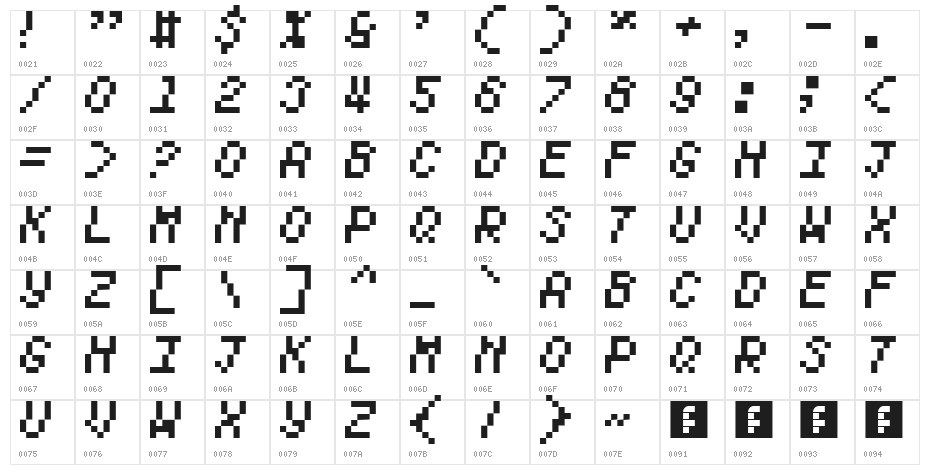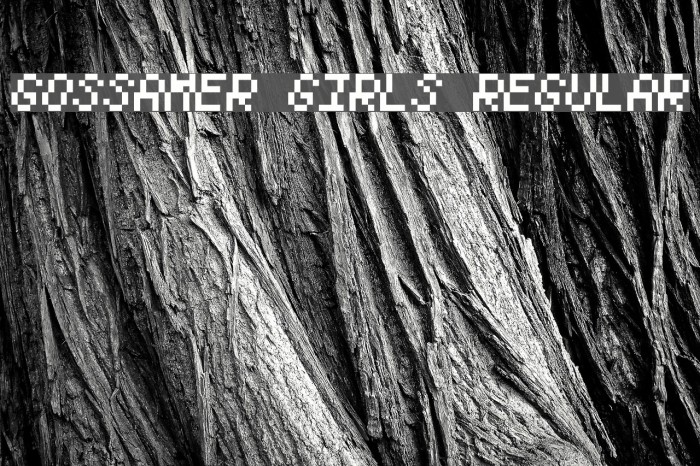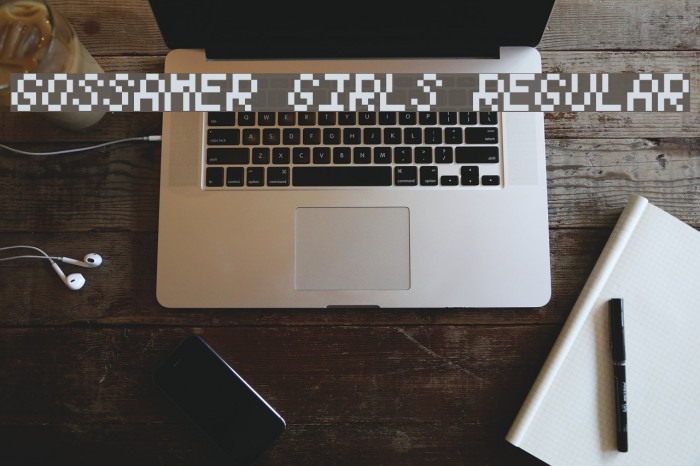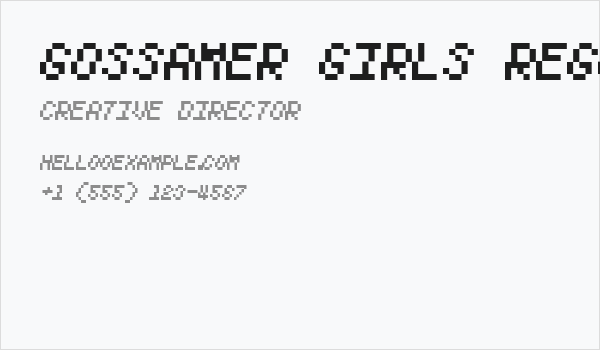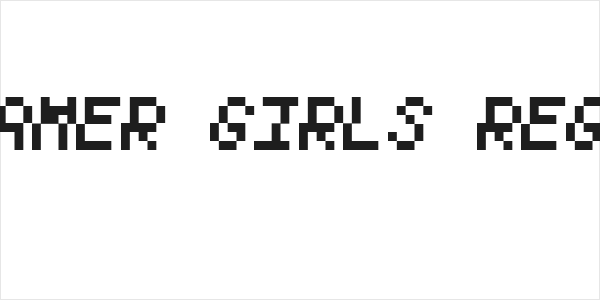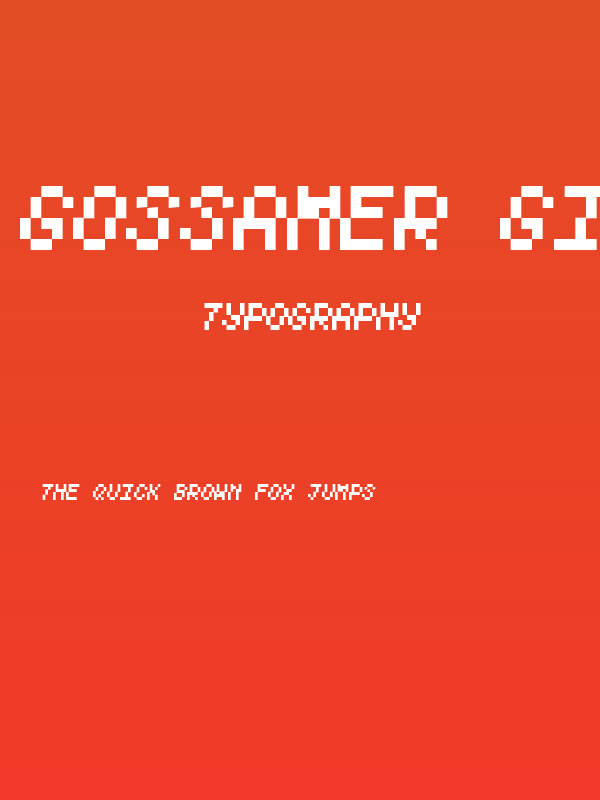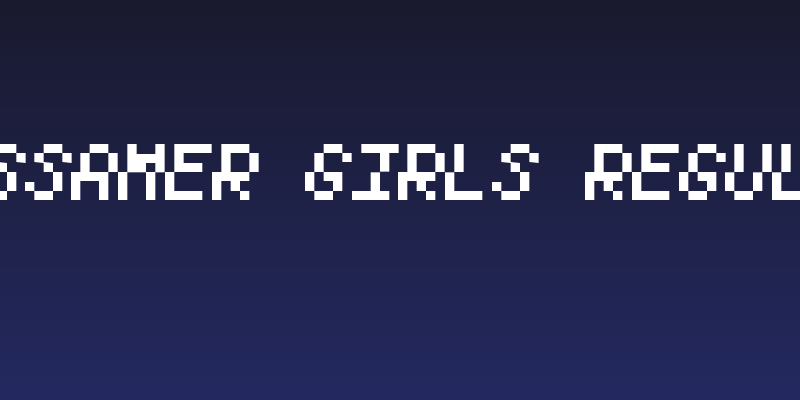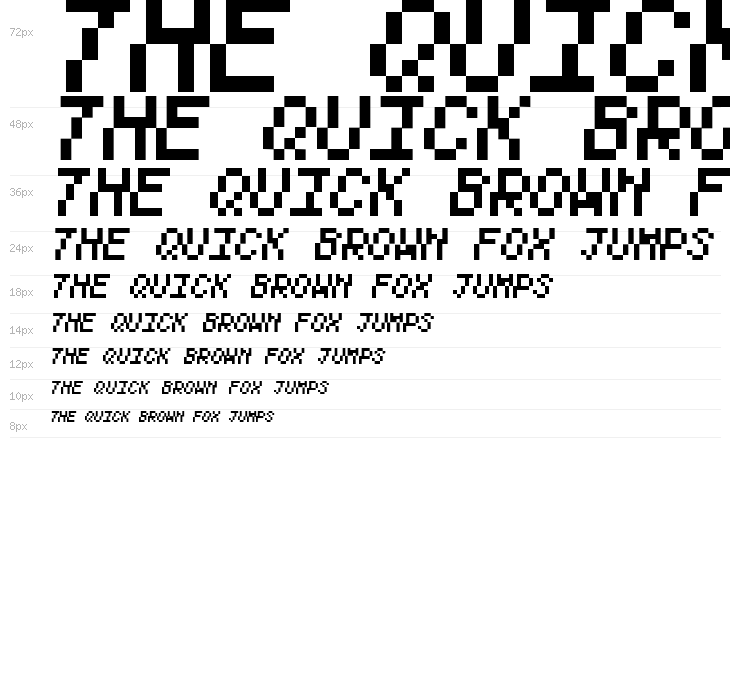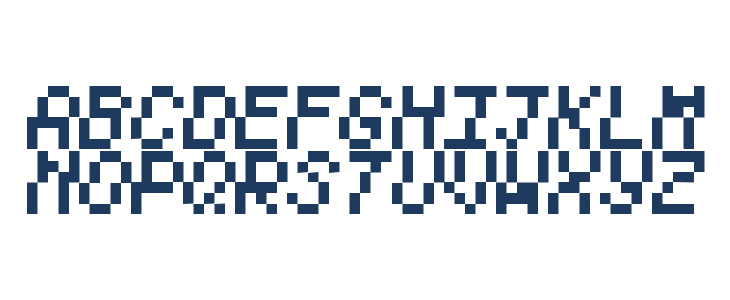
Gossamer Girls Regular Font
Gossamer Girls Regular Description
This font features a pixelated, blocky design reminiscent of early digital displays and retro video games. Each character is composed of uniform square blocks, giving it a distinctly digital and geometric appearance. The uppercase and lowercase letters maintain a consistent height, contributing to a monospaced feel, although the font is not strictly monospaced. The numerals and special characters follow the same pixelated style, ensuring uniformity across all glyphs. The font's simplicity and clarity make it highly legible, even at smaller sizes. Its nostalgic aesthetic is ideal for projects that aim to evoke a sense of the digital past or a retro-futuristic vibe.
| Overall Style | Retro, Digital |
| Use Case | Headlines, Logos, Digital displays |
| Proposed Projects | Ideal for video game design, retro-themed posters, digital art projects, and tech-related branding. |